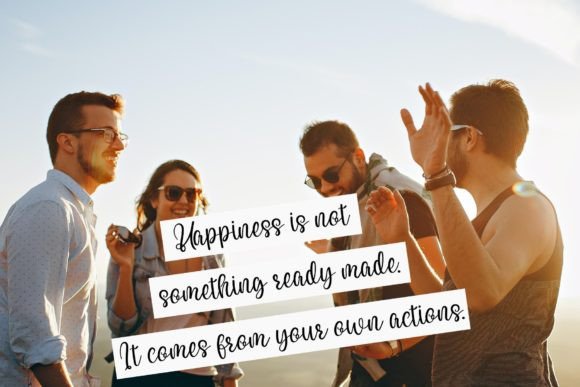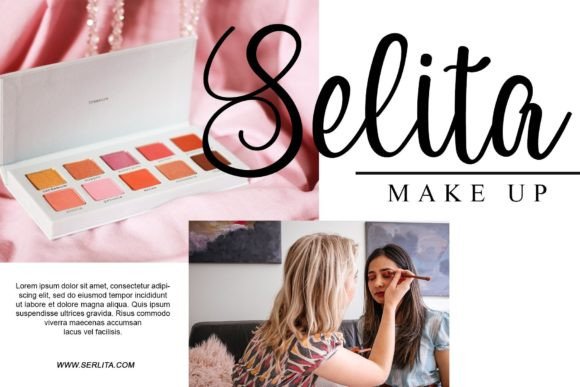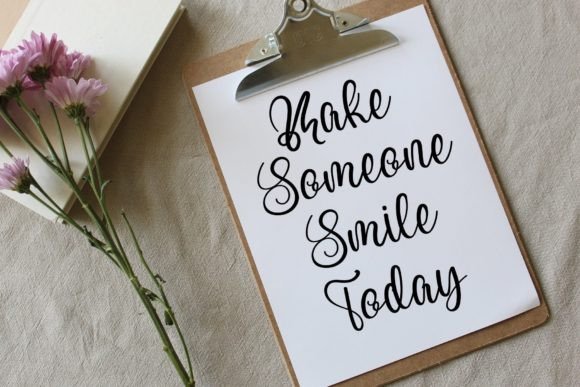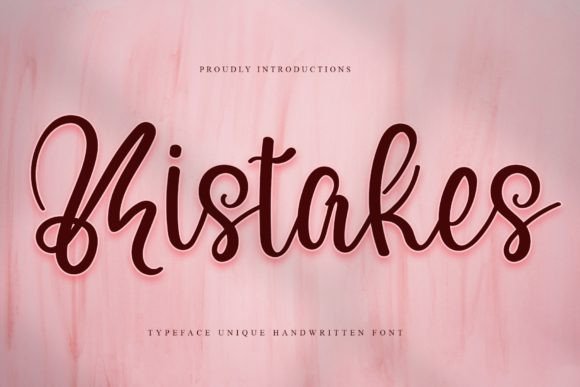
Introduction to Mistakes Font
Mistakes is a delicate, elegant, and flowing handwritten font.
It has beautiful and well balanced characters and as a result, it matches a wide pool of designs Mistakes is PUA encoded, which means you can access all of the glyphs and swashes with ease.